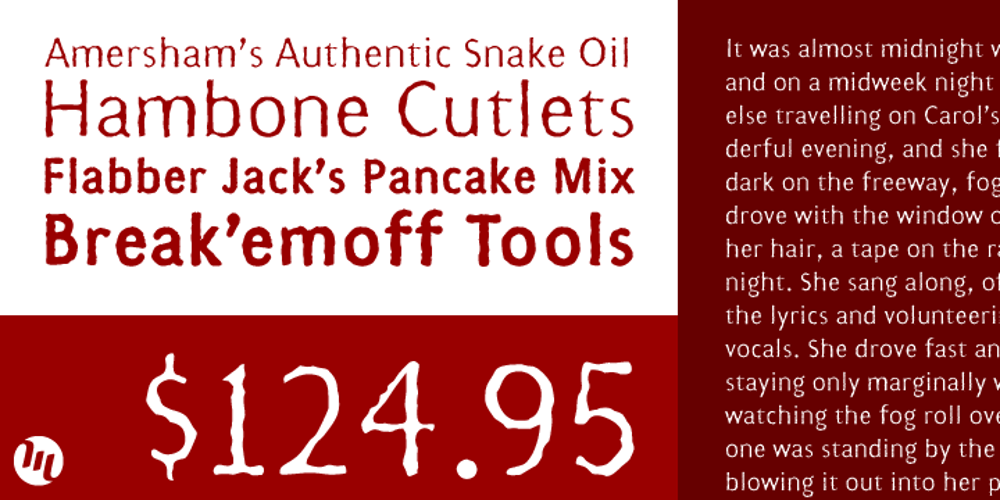
Gothico Antiqua Font Family was designed by Matthew Aaron Desmond and published by MADType. Gothico Antiqua contains 2 styles and family package options. Gothico Antiqua is the result of grunging up one of my early sans-serif type designs. It strangely works very well and looks authentic at small to medium settings.